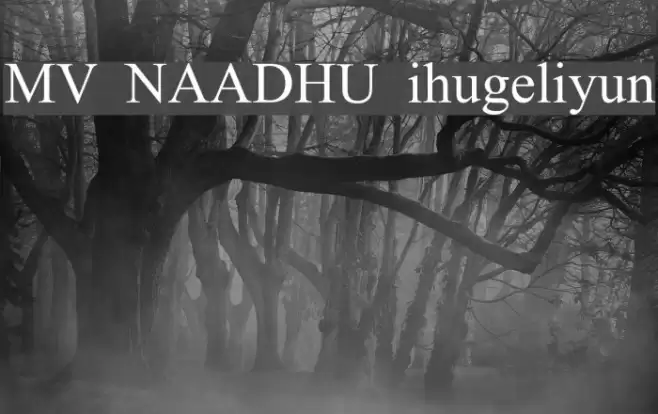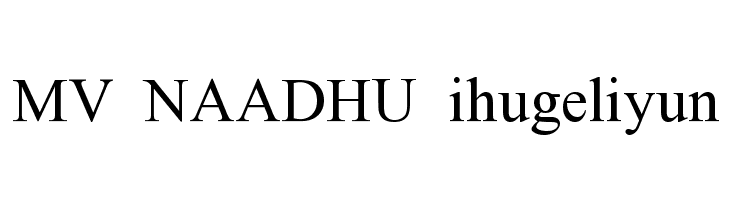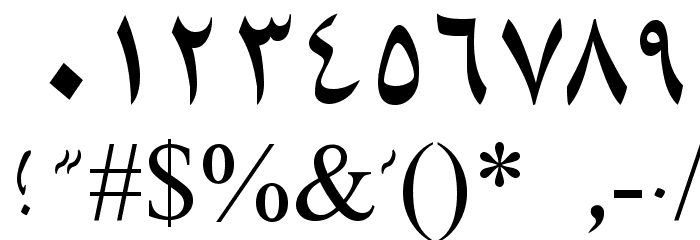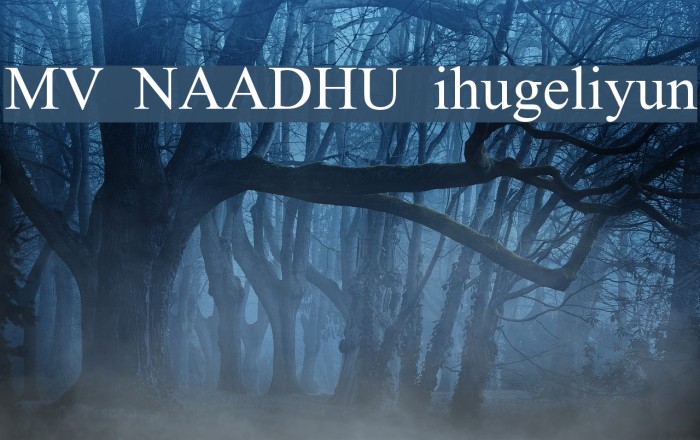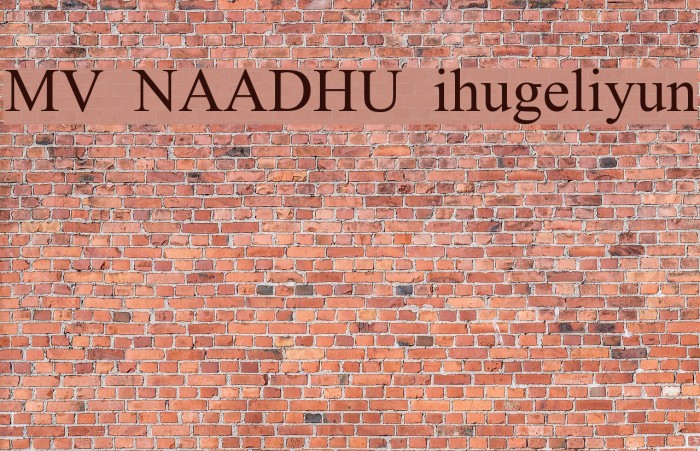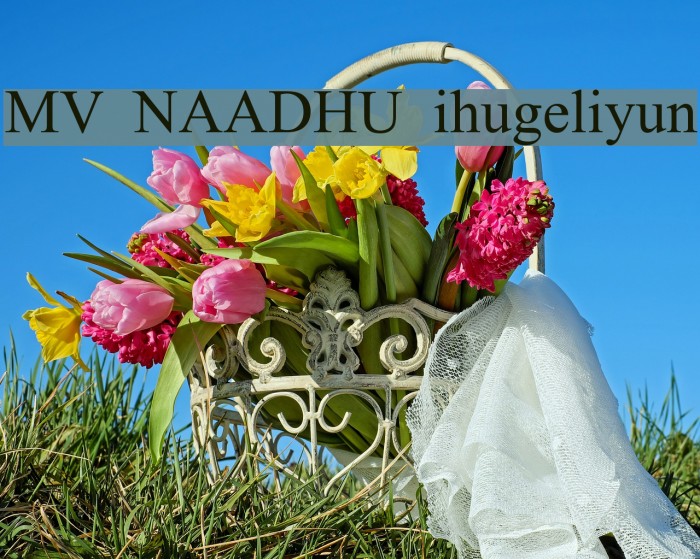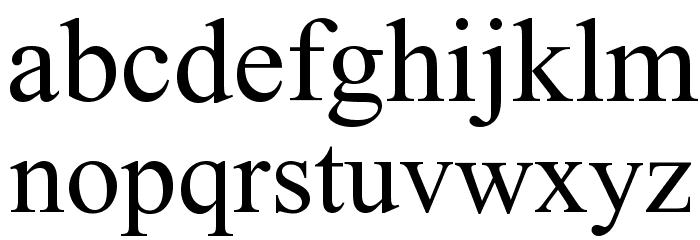
MV NAADHU ihugeliyun Font
MV NAADHU ihugeliyun Description
This font exhibits a classic serif style with elegant and refined strokes. The uppercase letters are bold and commanding, while the lowercase letters maintain a graceful and balanced appearance. The numerals are distinct and clear, with a traditional design that complements the overall aesthetic. Special characters are well-integrated, offering a cohesive look across all glyphs. The font's design is versatile, making it suitable for a variety of applications where a touch of sophistication is desired.
A classic serif font with elegant strokes and a refined appearance from Uncategorized fonts.
- Proposed Projects: Ideal for book covers, editorial design, formal invitations, and branding materials.
- Overall Style: Classic